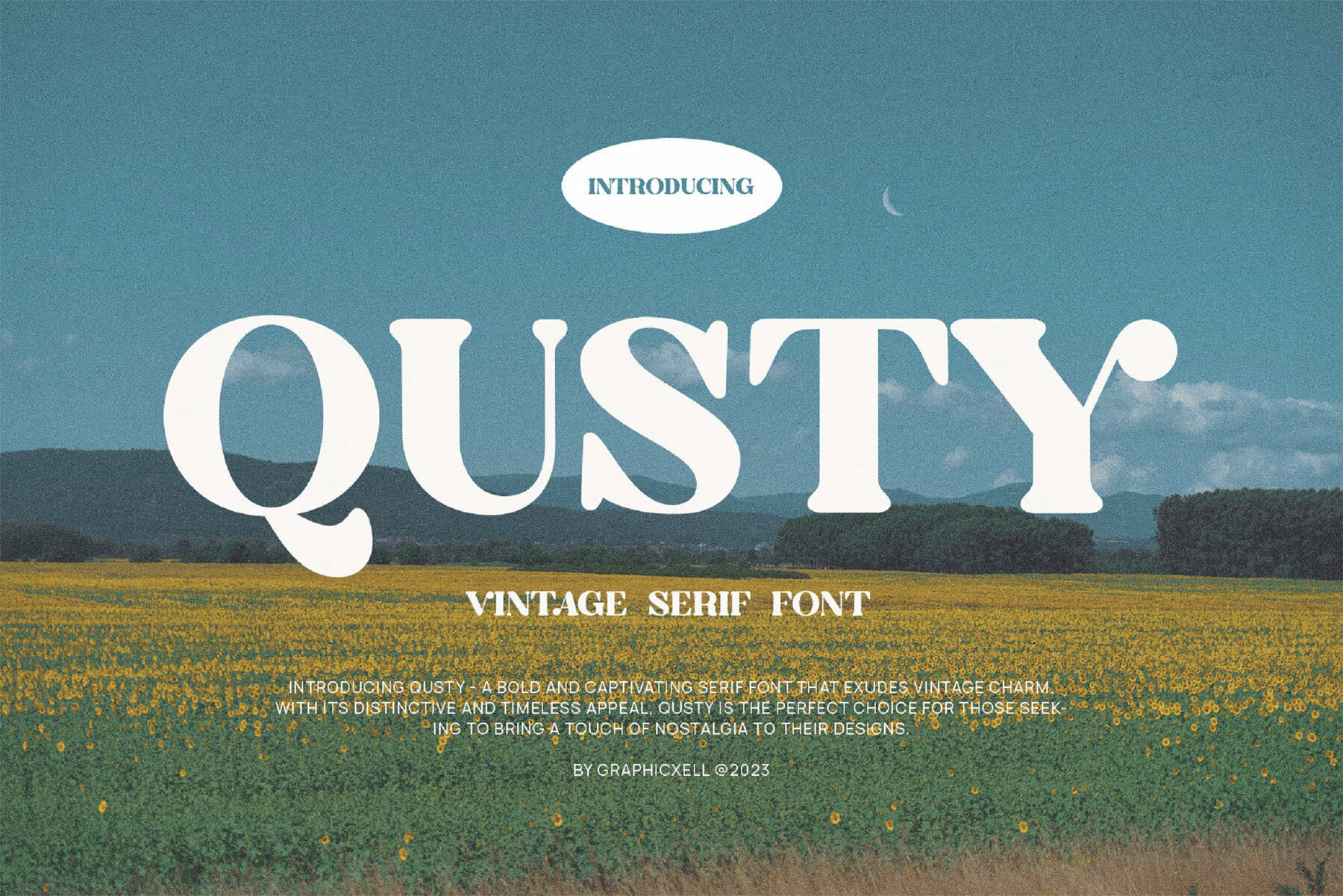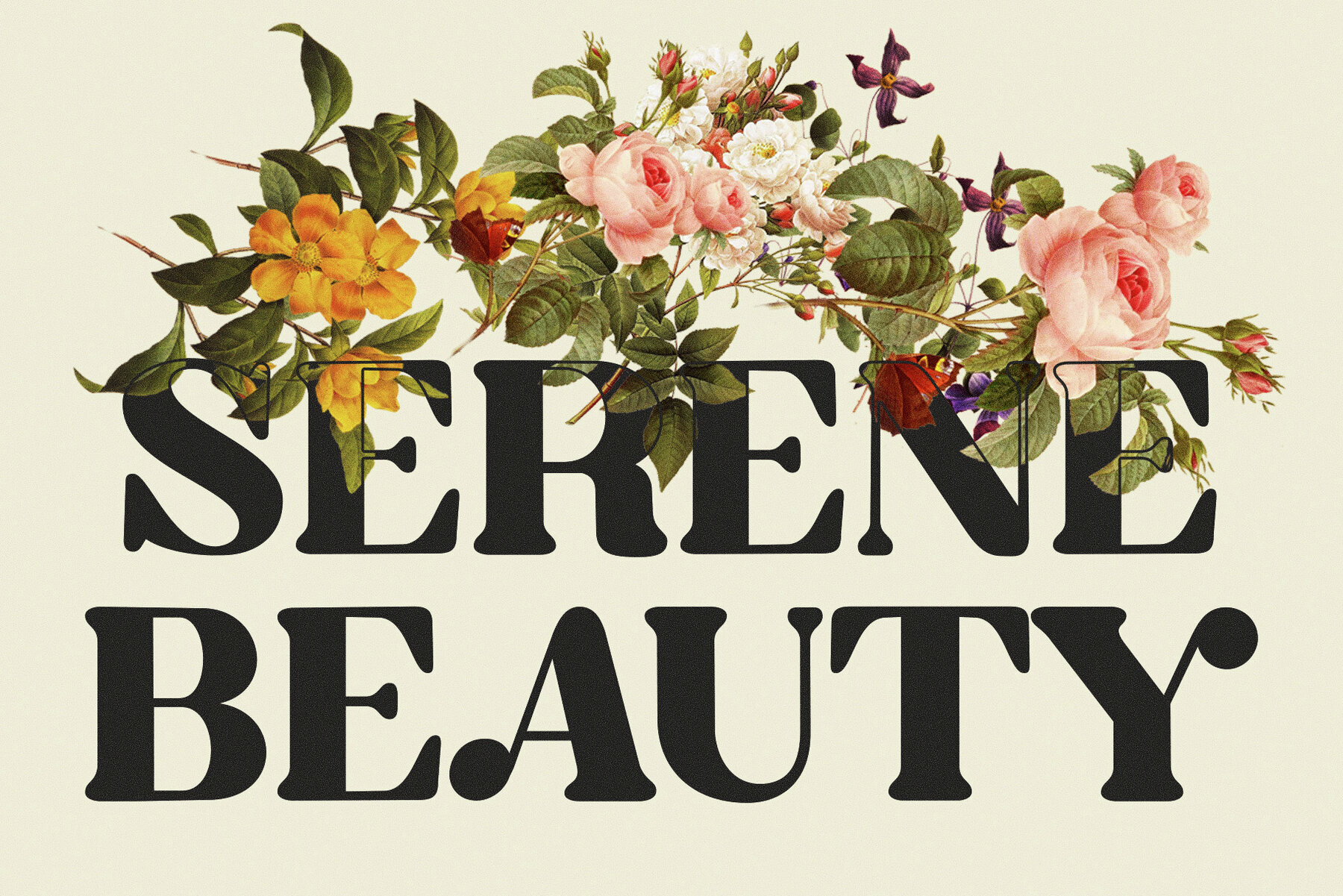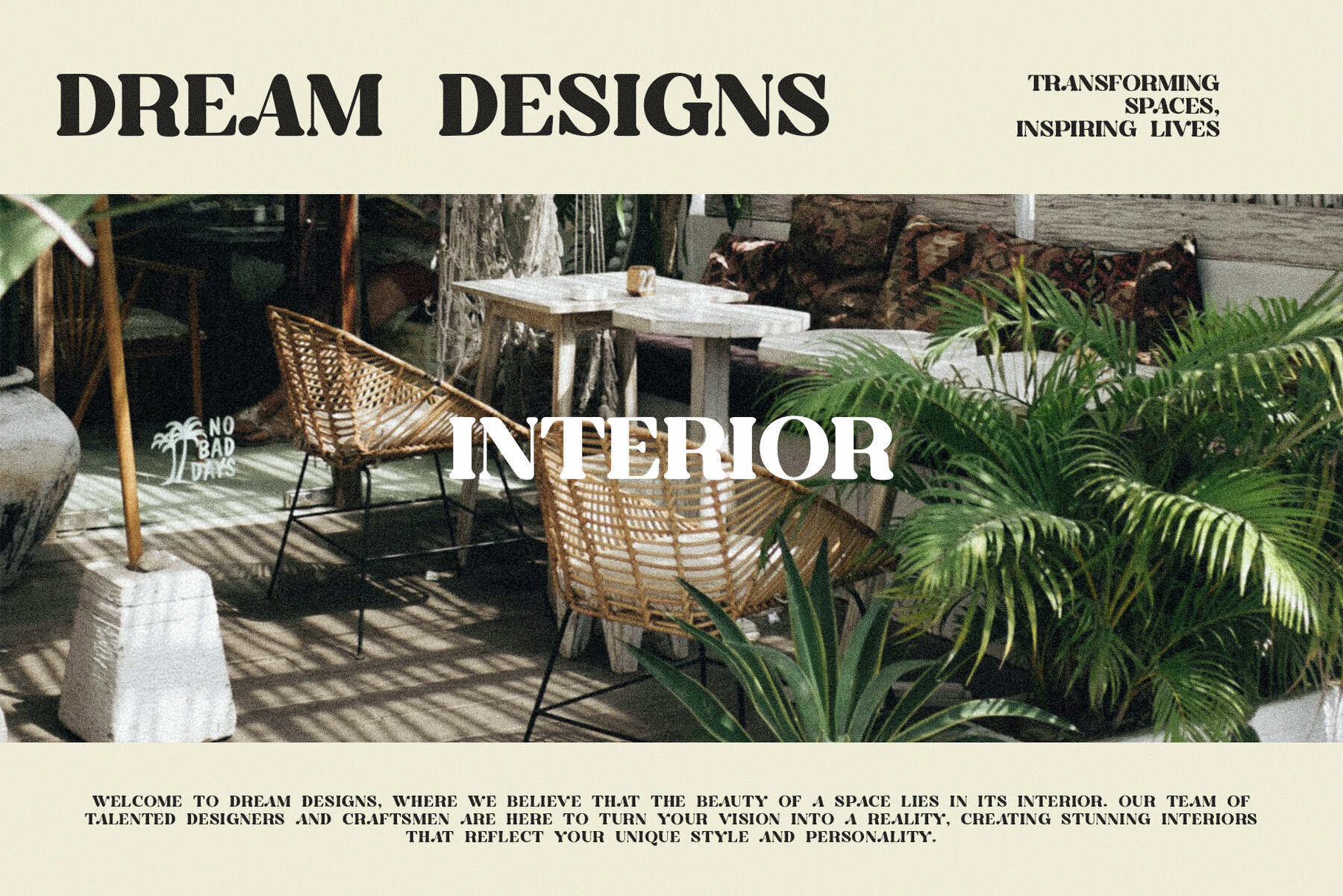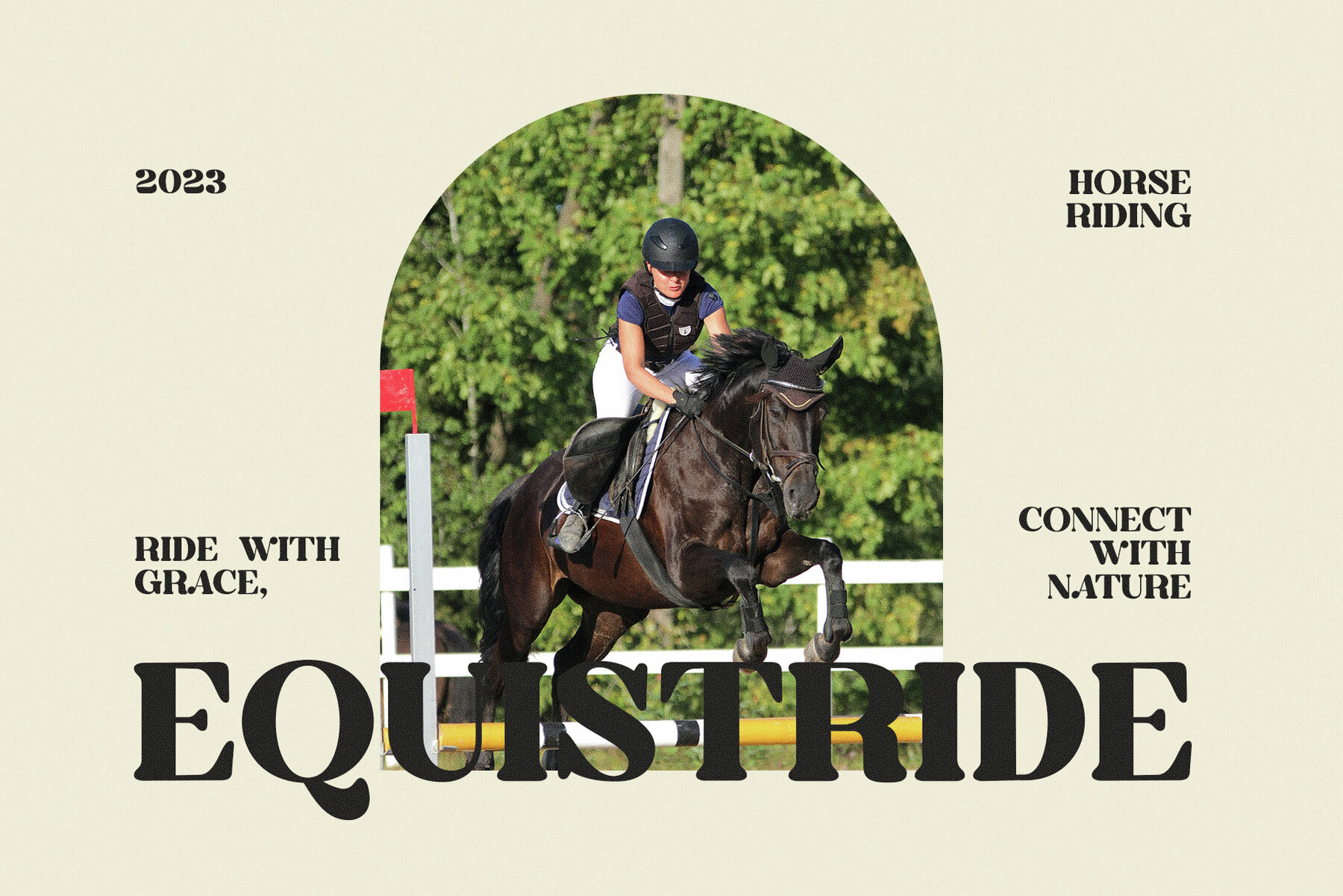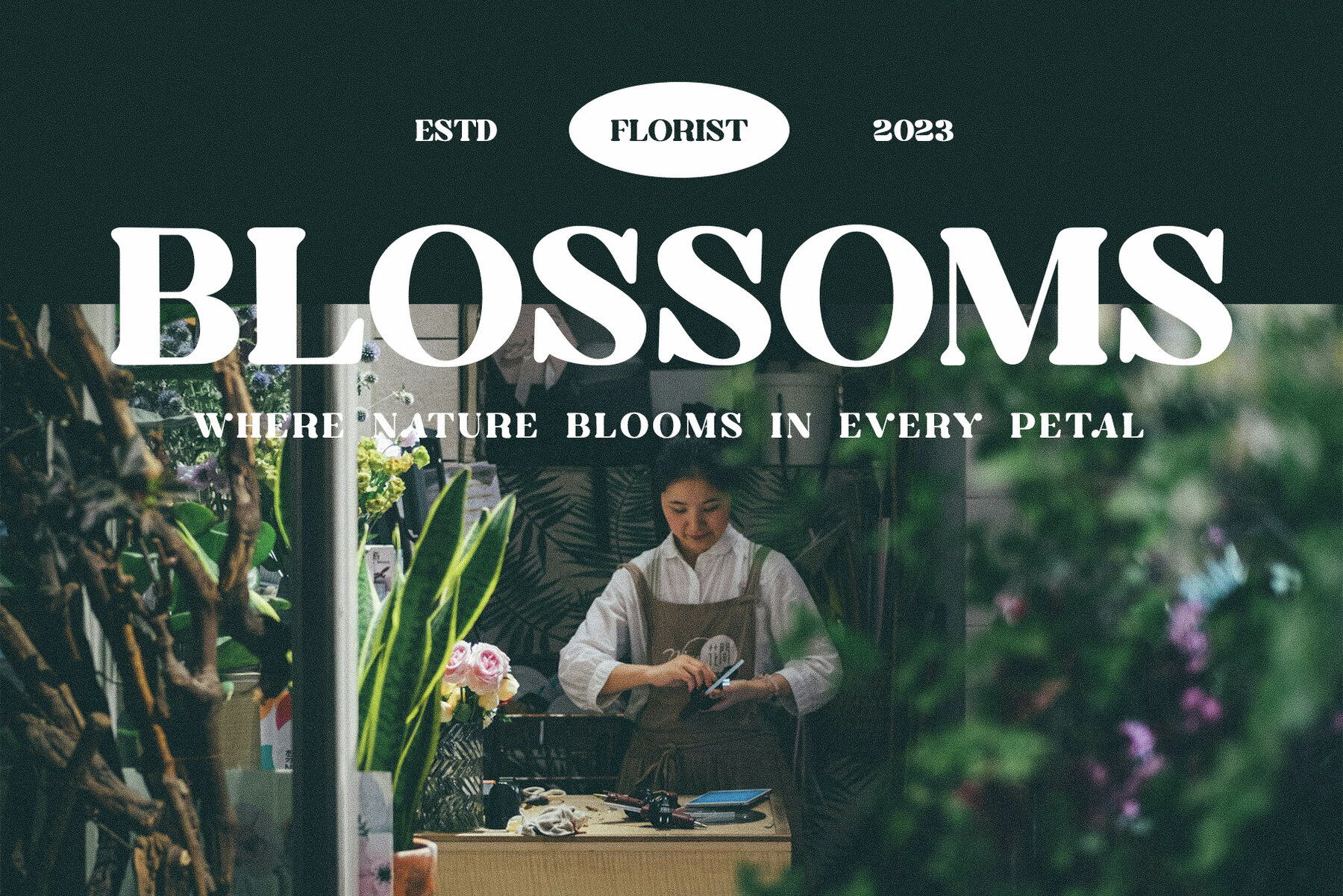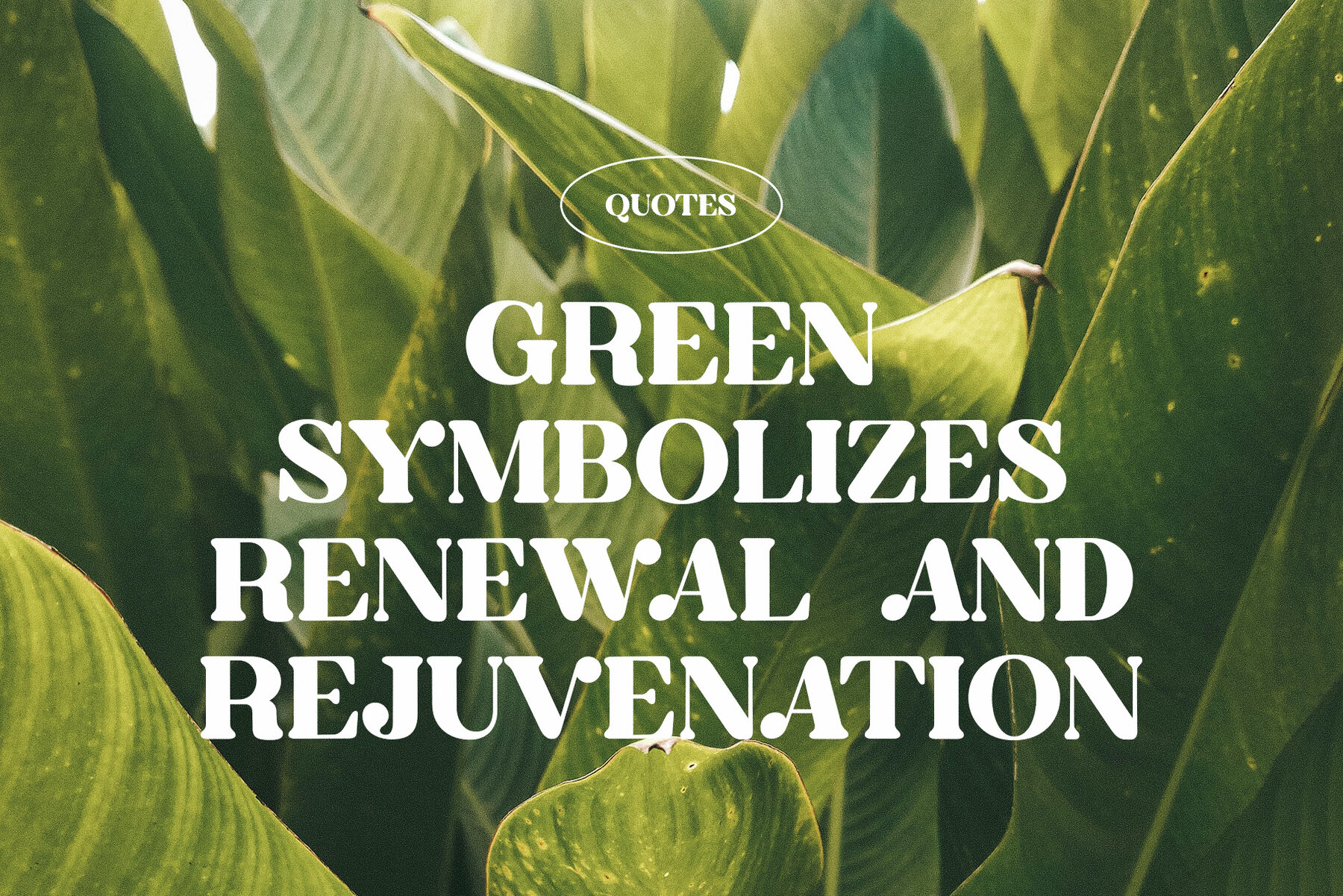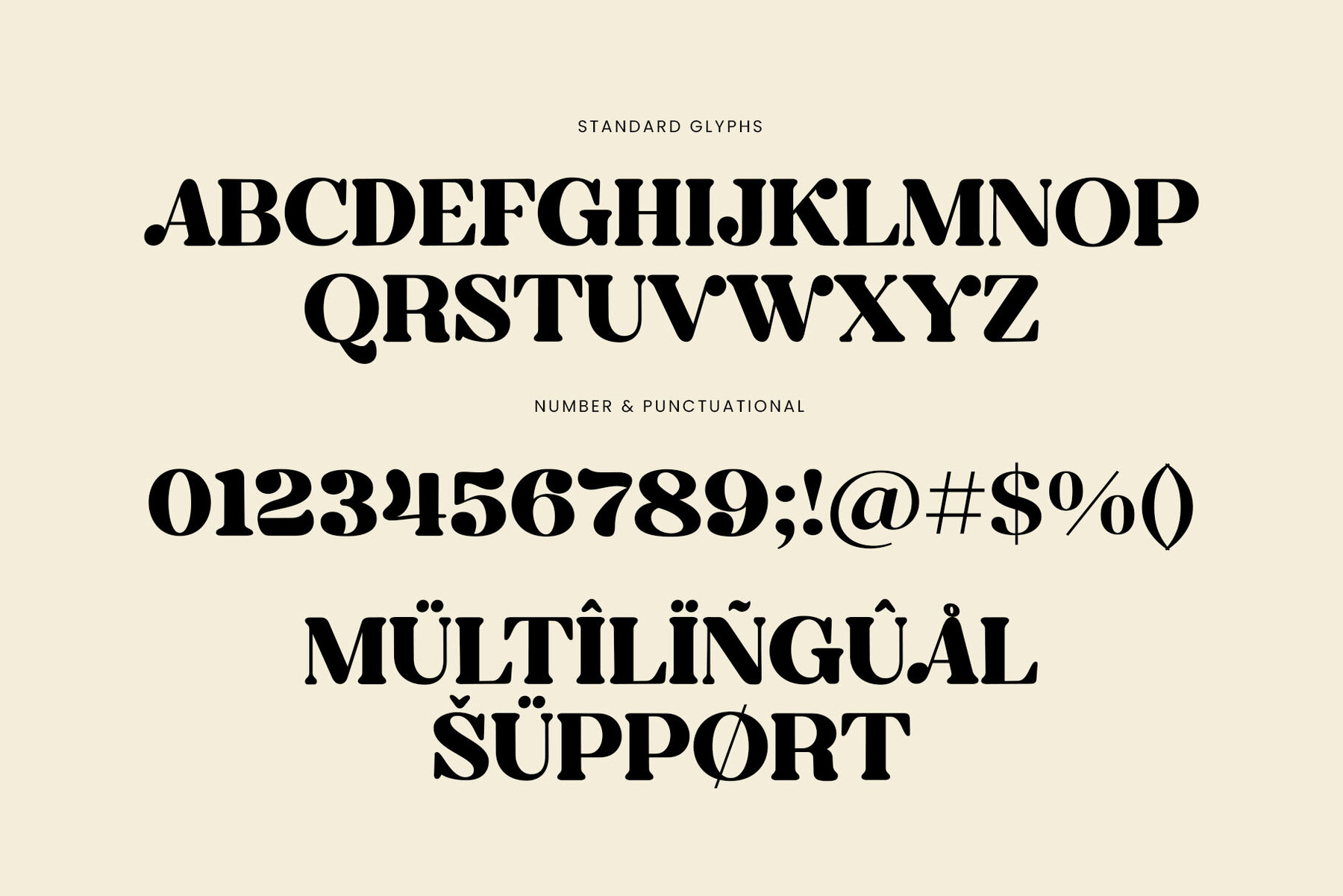
Qusty Font
Qusty Regular
Qusty is a distinguished and elegant serif font, ideal for branding and logo designs. This typeface combines classic elegance with a modern twist, making it suitable for a wide range of applications. Whether you're working on branding projects, logos, wedding designs, social media posts, advertisements, product packaging, or invitations, Qusty offers a high level of readability and style. For the best results, use Qusty with design software like Adobe Illustrator or Adobe Photoshop. If you have any questions, feel free to reach out for assistance.Qusty: Elegant Serif for Versatile Design